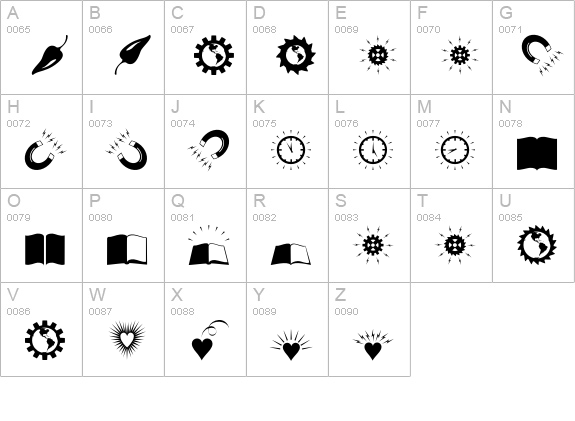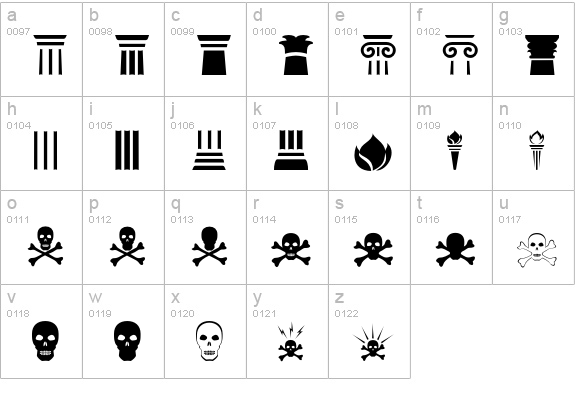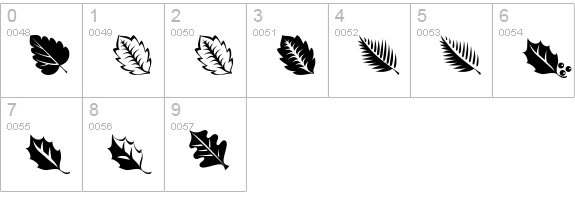
AltemusCutsTwo Font Details
AltemusCutsTwo is a unique and eye-catching display font that exudes a sense of edginess and modernity. Its sharp angles and intricate details make it perfect for making a bold statement in any design project. This font is ideal for headlines, logos, branding, and any creative project that requires a touch of sophistication. The best part about AltemusCutsTwo is that it is available for free download at FontsMarket.com. This means that you can add this striking font to your collection without any cost, making it a valuable addition to your design resources. Don't miss out on the opportunity to elevate your designs with the captivating AltemusCutsTwo font - download it today and unleash your creativity!